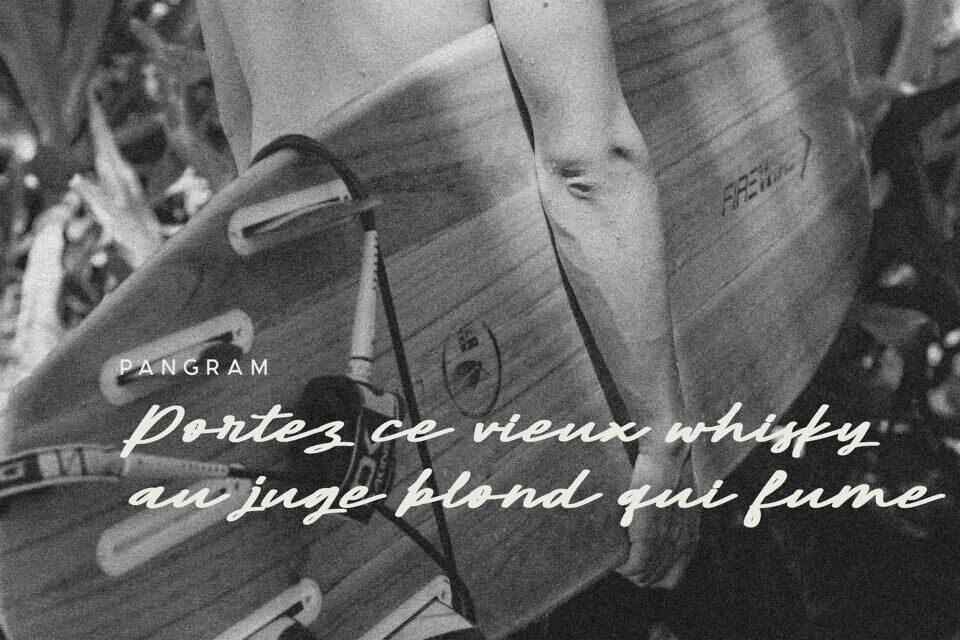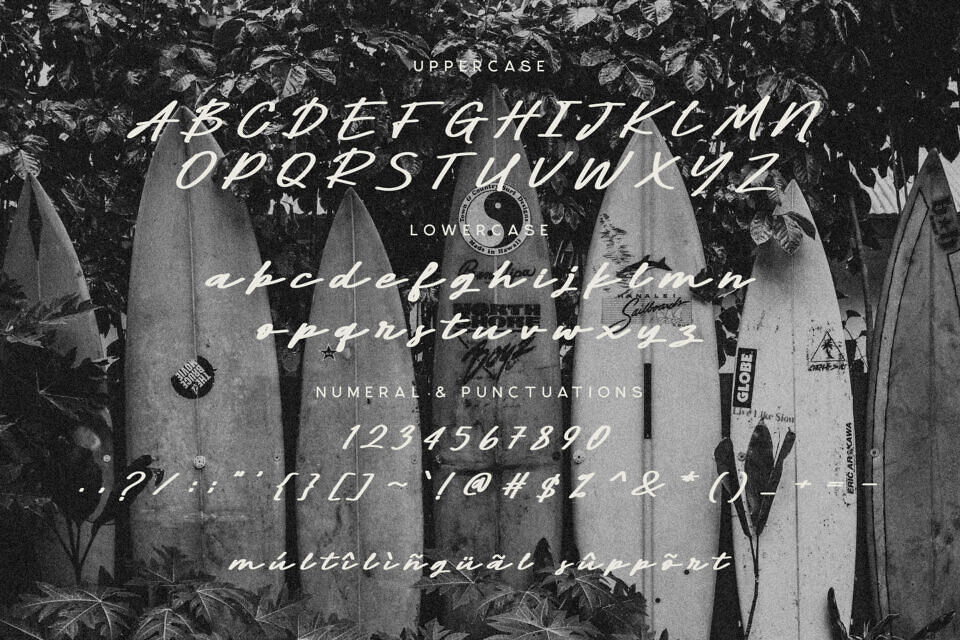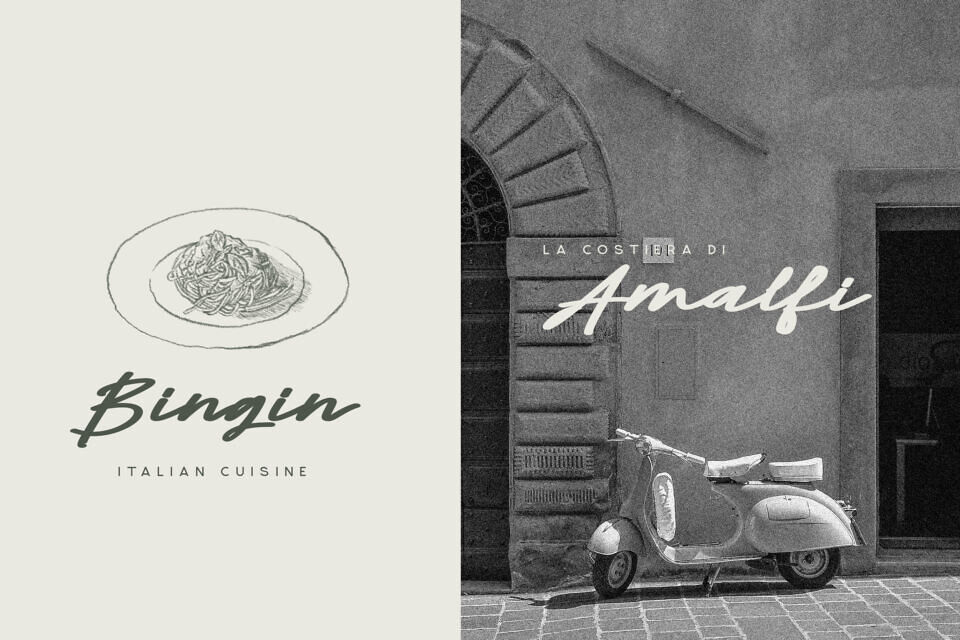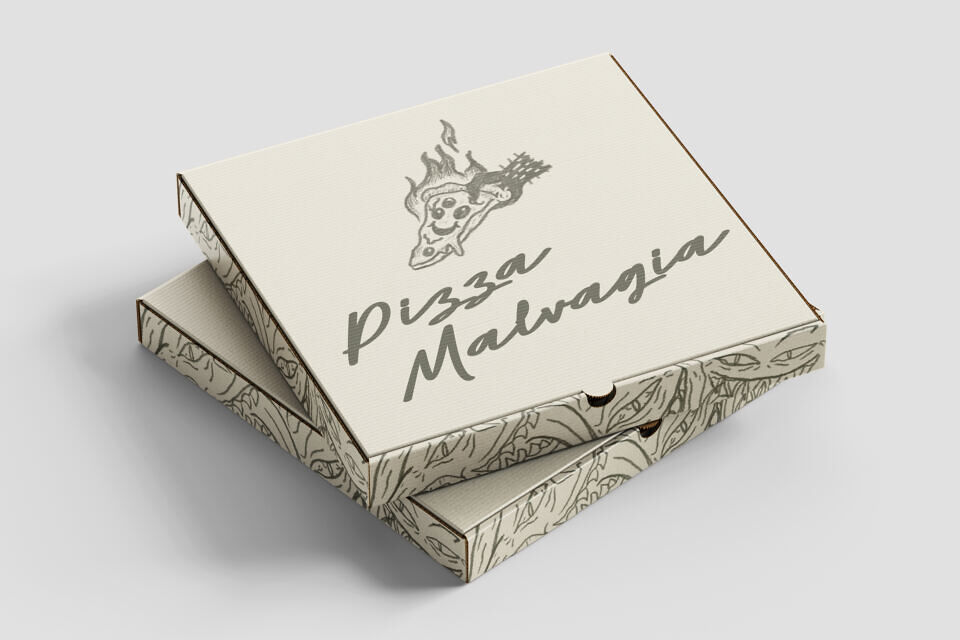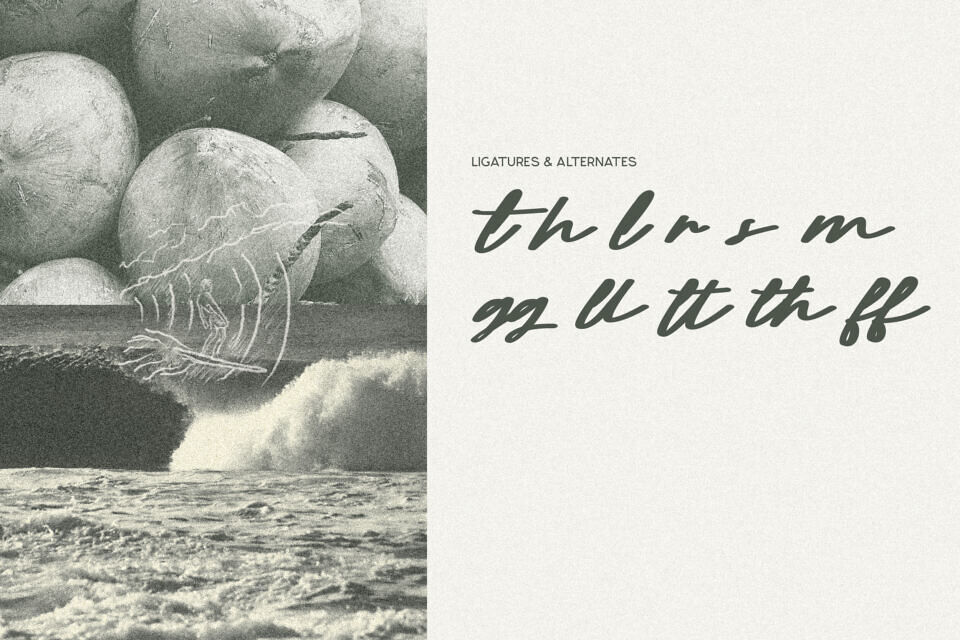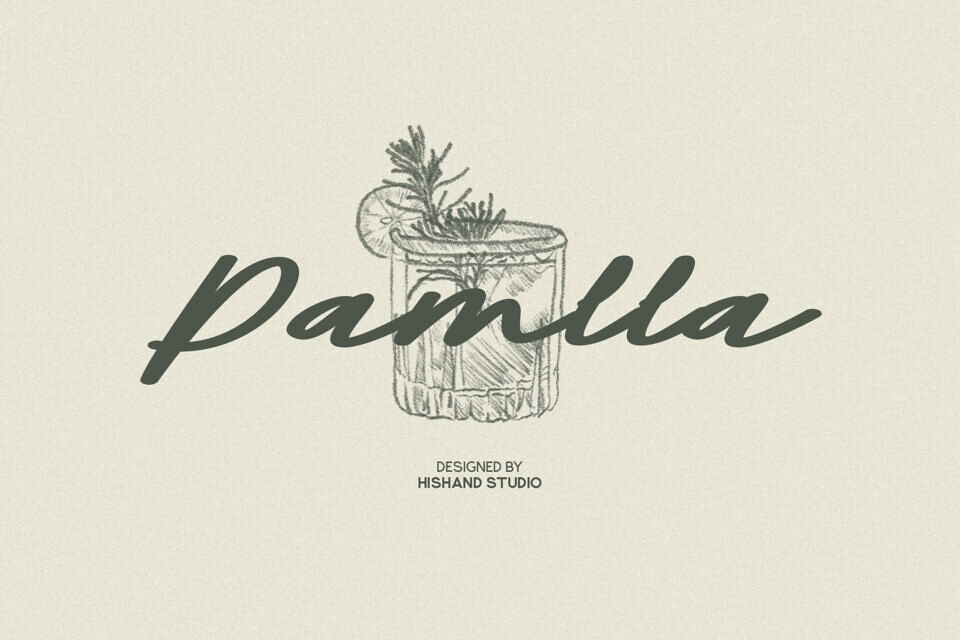
Pamlla Font
Pamlla is a graceful script font that blends elegance with timeless charm. Featuring flowing letterforms and delicate curves, it delivers a refined, handcrafted look while maintaining excellent readability.
Ideal for boutique branding, wedding invitations, premium packaging, and lifestyle blogs, Pamlla adapts beautifully across print and digital media. Its balanced strokes and smooth spacing make it perfect for logos, editorials, signage, and social graphics.
Pamlla brings warmth, sophistication, and professionalism to any project, enhancing both minimalist and luxurious designs. Elevate your work with Pamlla—a stylish, versatile font that adds classic beauty and lasting impact to your creative vision.